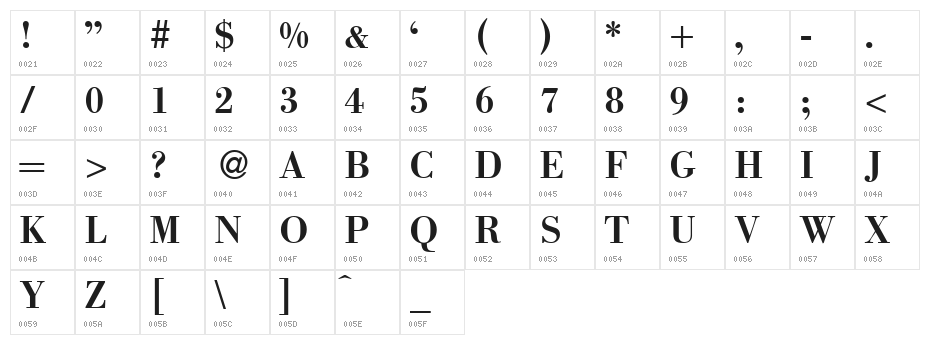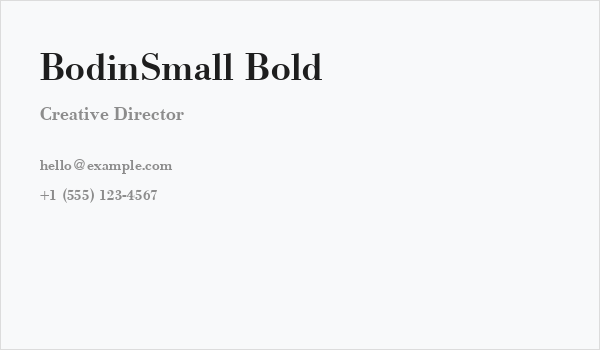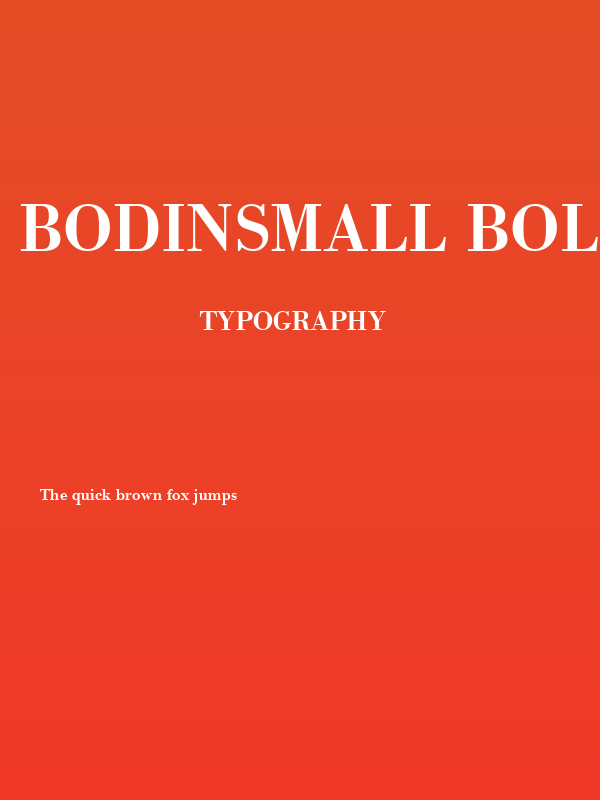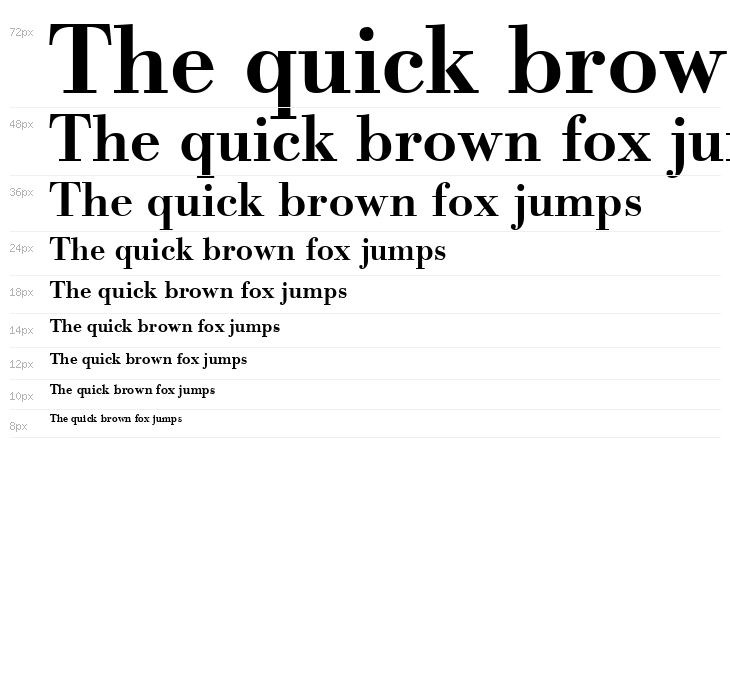
BodinSmall Bold Font
BodinSmall Bold Description
This font exhibits a strong and bold serif style with high contrast between thick and thin strokes, giving it a dramatic and elegant appearance. The serifs are pronounced and slightly bracketed, adding to its classic and sophisticated look. The uppercase letters are tall and commanding, while the lowercase letters maintain a balanced and harmonious flow. The numerals are consistent with the overall boldness, ensuring readability and impact. Special characters are well-integrated, maintaining the font's cohesive style.
Overall StyleClassic
Proposed ProjectsIdeal for luxury branding, editorial headlines, book covers, and formal invitations.